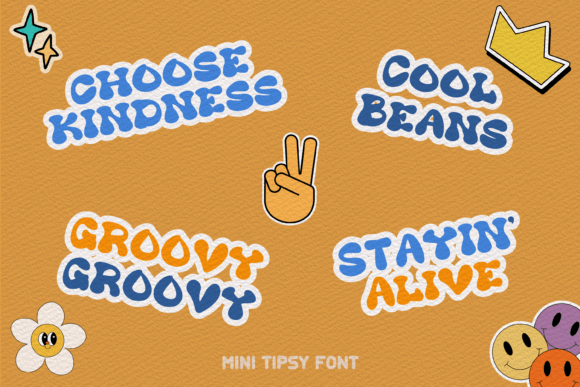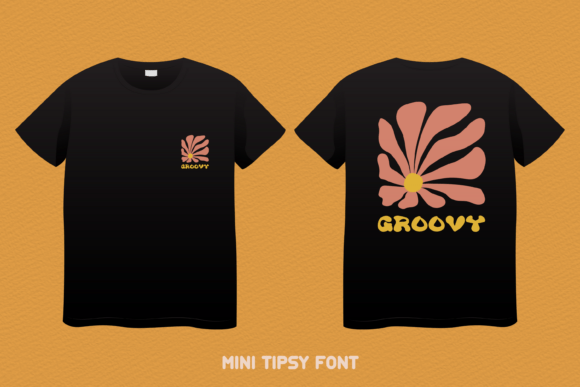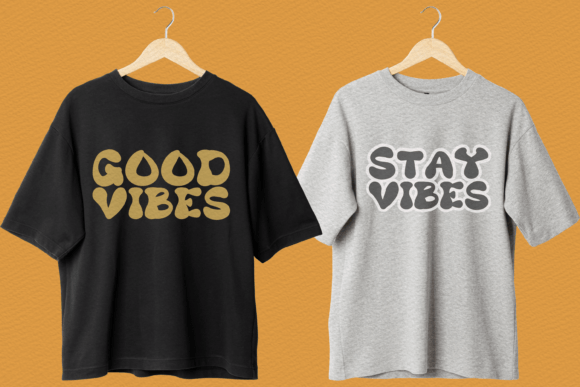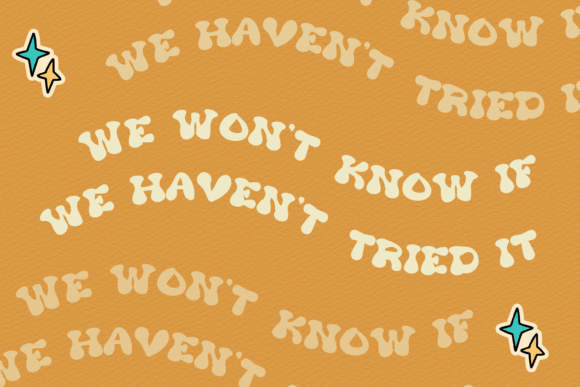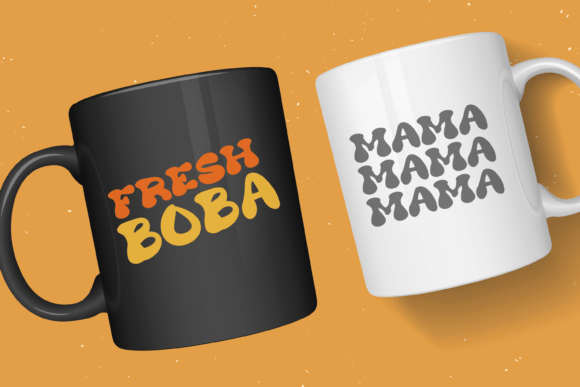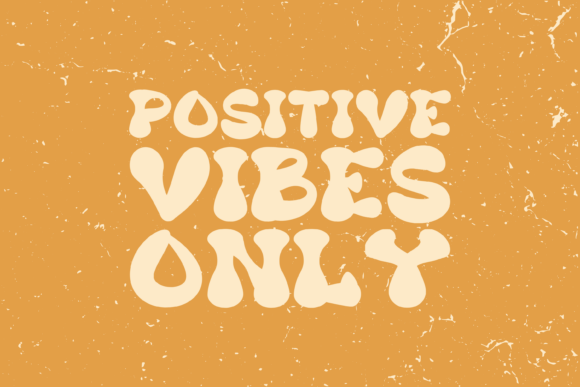
Introduction to Mini Tipsy Font
You’re working on a new project, and you need that one special element to make it stand out. The perfect color, the ideal font, the perfect texture – it’s the little things that can make all the difference. For designers, finding that unique design resource can be a game-changer. And sometimes, it’s the most unexpected discovery that can elevate your work to the next level.
That’s where the Mini Tipsy Font comes in – a fun, groovy retro display font that’s sure to bring a burst of nostalgic charm and playful energy to your creative projects. Its chunky, wobbly, and distinctly rounded letterforms are designed to evoke the carefree spirit of classic retro eras and whimsical, slightly tipsy vibes.
With its high-quality design and transparent background, the Mini Tipsy Font is the perfect addition to any project that needs a bold, groovy aesthetic with an unforgettable punch. And the best part? It’s available for a free download, making it a valuable resource for designers looking to add a little something extra to their work.
Key Features of Mini Tipsy Font
- High-quality, unique font design perfect for creative projects and design resources
- Transparent background, making it ideal for use on any background color or image
- Resolution-independent design, suitable for use at any resolution or size
- Unique, hand-drawn style with a playful and whimsical feel, ideal for adding personality to your design
- Perfect for use in digital design, print design, or as a design element in a creative project
Honest Review: Mini Tipsy Font
I recently had the chance to work with the Mini Tipsy Font for a creative project and I must say, I was quite impressed. As a designer, I’m always on the lookout for high quality design resources that can elevate my work and this font did not disappoint.
What works well with the Mini Tipsy Font is its playful and whimsical feel, making it perfect for projects that require a touch of personality. The font is also available for free download, which is a definite bonus for designers on a budget. I also appreciated the transparent background, which made it easy to incorporate into my design without any unwanted distractions.
- ✨ Playful and whimsical feel, perfect for creative projects
However, I did encounter a few limitations with the Mini Tipsy Font. The font is not as versatile as some of the other fonts I’ve worked with, and it may not be suitable for all types of projects. Additionally, the font may require some tweaking to get the desired look, which can be time-consuming.
Overall, I would recommend the Mini Tipsy Font to designers who are looking for a fun and quirky font for their creative projects. While it may have some limitations, it’s a great resource for designers who want to add some personality to their work.
Conclusion
While the Mini Tipsy Font may not be perfect, it’s a great addition to any designer’s toolkit. With its playful feel and transparent background, it’s perfect for creative projects that require a touch of whimsy.
Common Use Cases and Tips
The Mini Tipsy Font is ideal for creative projects, such as invitations, social media graphics, and branding materials.
For the most effective use, pair the font with a clear and concise message, and ensure the design is visually appealing and easy to read.
Remember to experiment with different font sizes, colors, and arrangements to get the most out of this design resource.